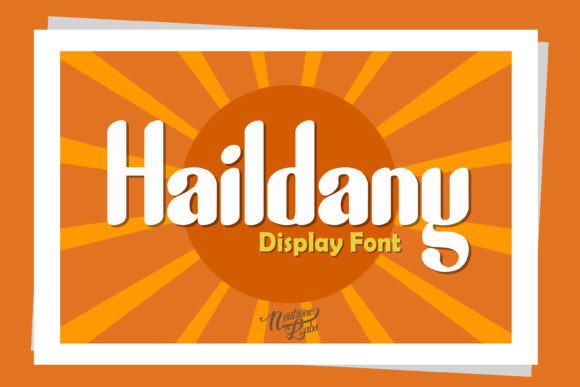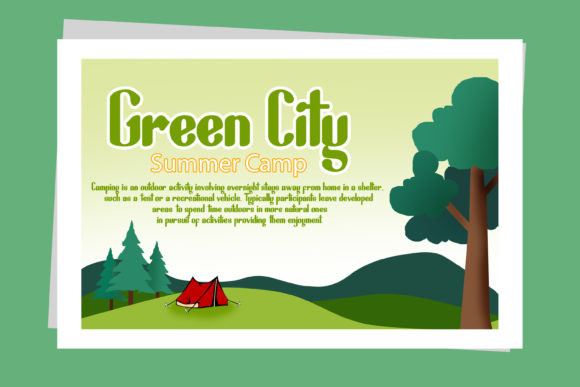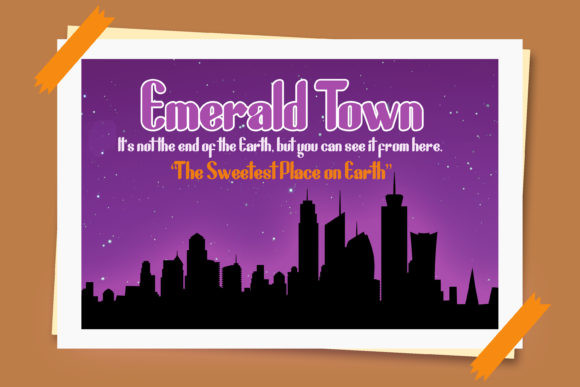
Haildany Font
Haildany is an enchanting display font. Clean and a little bit quirky, this font is the perfect fit for all of your logos, branding, social media, and crafty DIY projects.